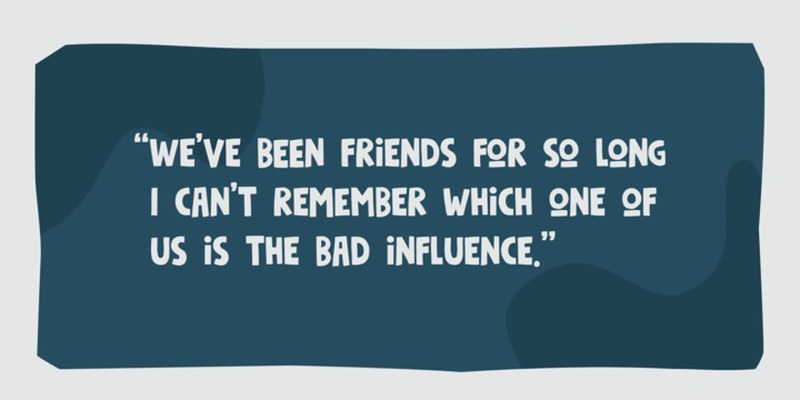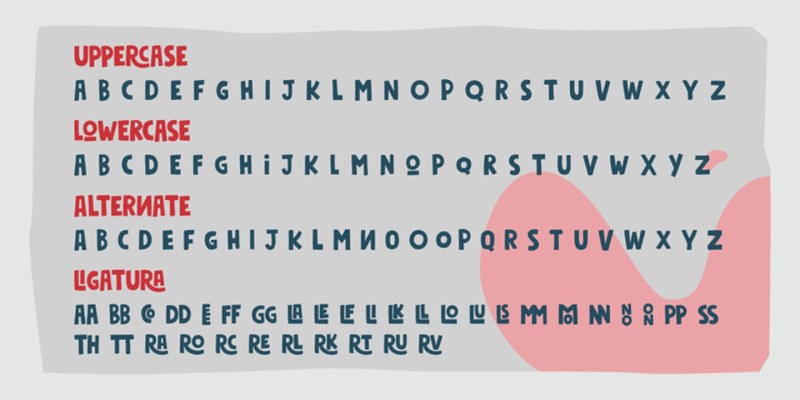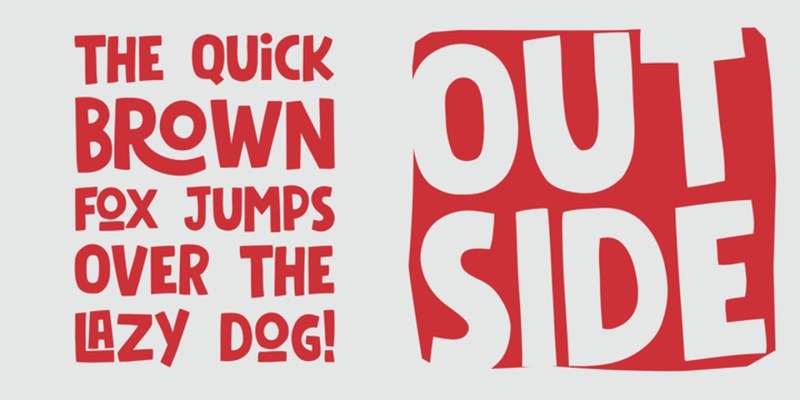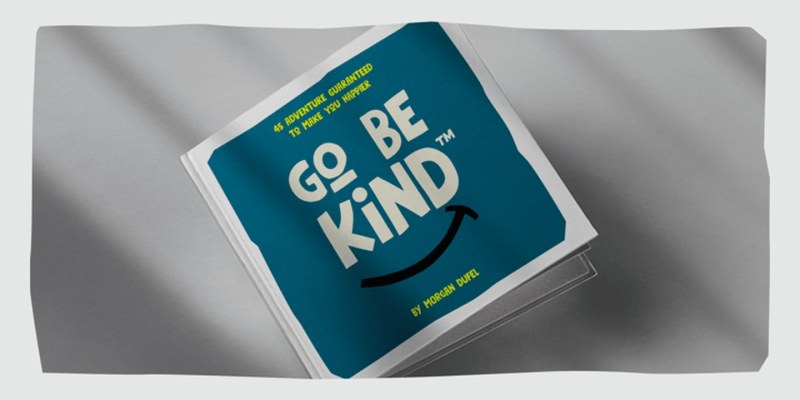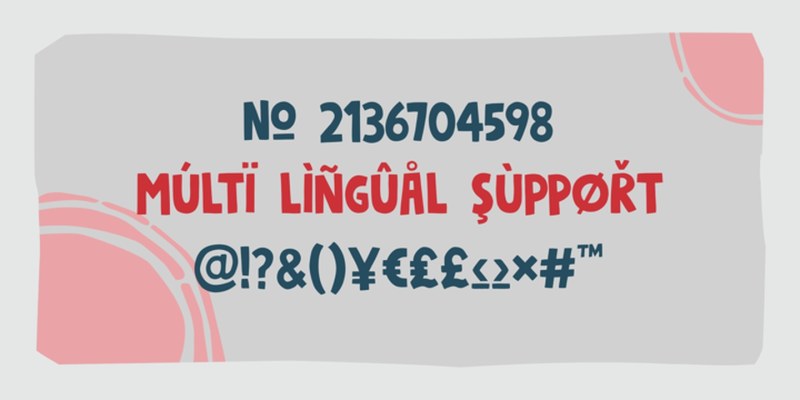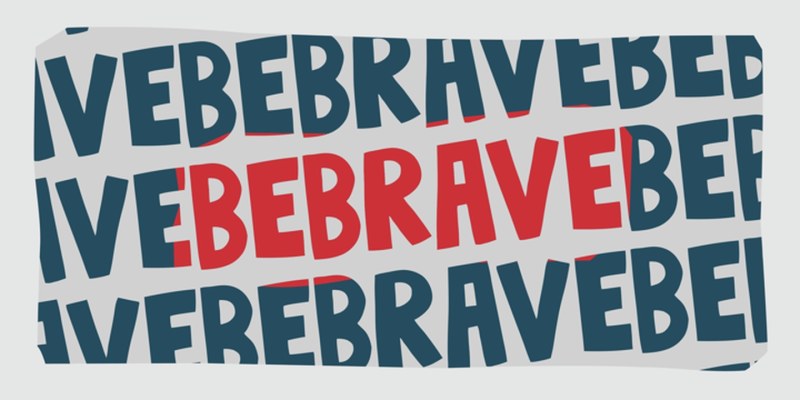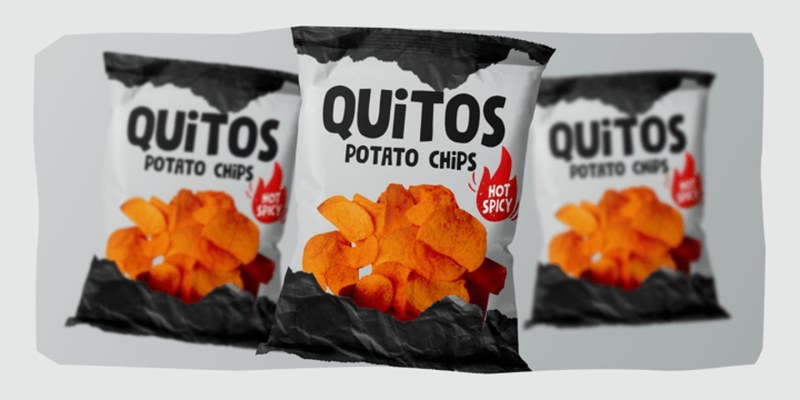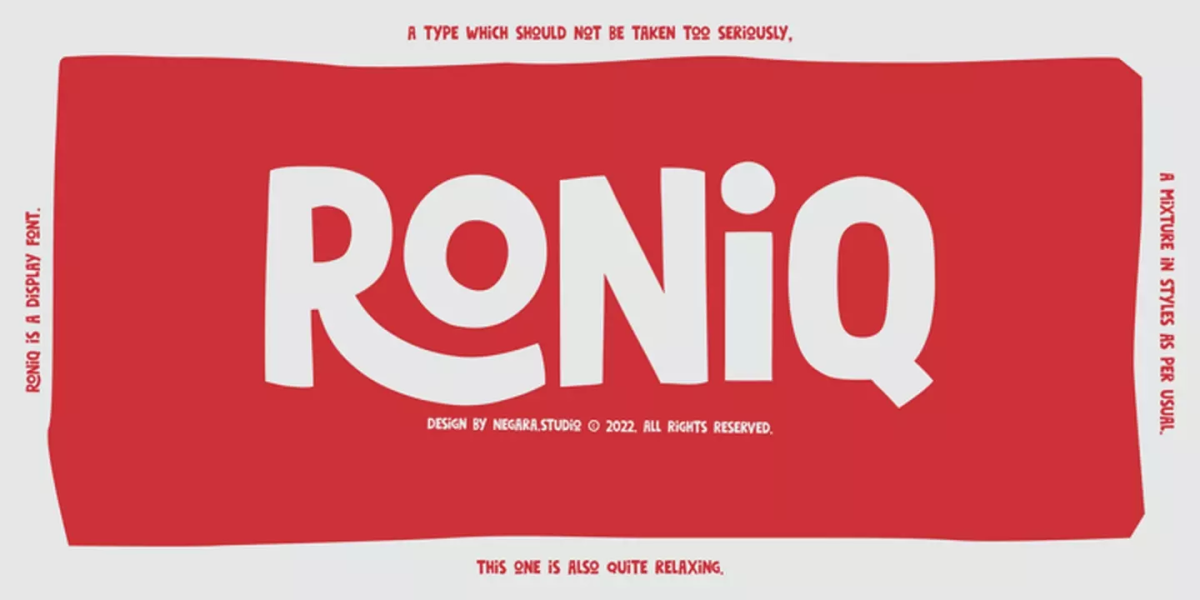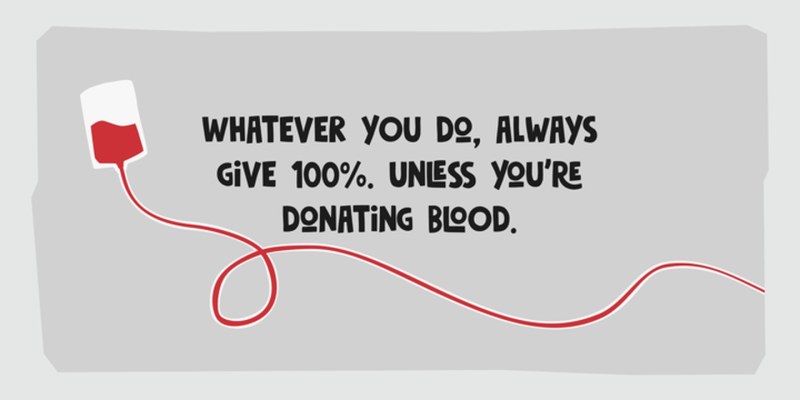
Roniq Font
RONiQ is a display font. A type which should not be taken too seriously, a mixture in styles as per usual. this one is also quite juicy. Ready to be used in fun projects…
RONiQ is a display font. A type which should not be taken too seriously, a mixture in styles as per usual. this one is also quite juicy. Ready to be used in fun projects. Supports some languages, a lil bit multingual.
Where Roniq Font works best
Roniq Font is built for size: event posters, hero headlines and billboard-style layouts.
High contrast display type like Roniq Font reads instantly in thumbnails and motion graphics.
What is Roniq Font good for?